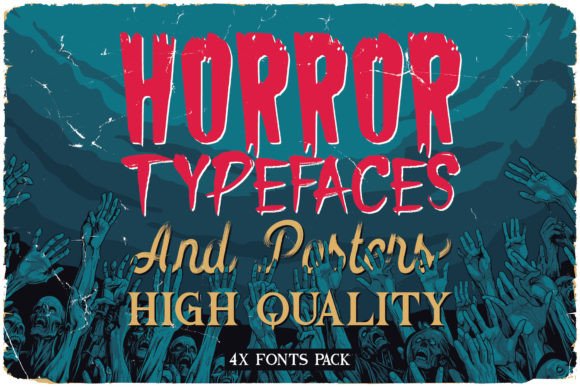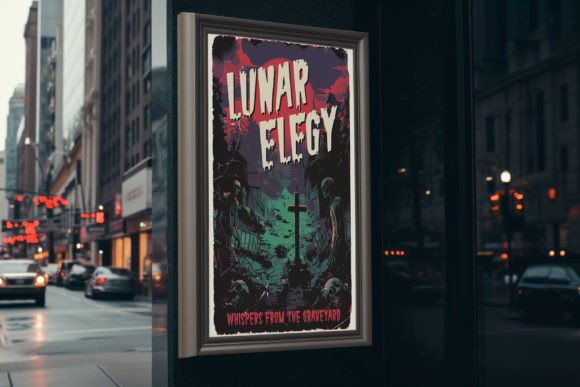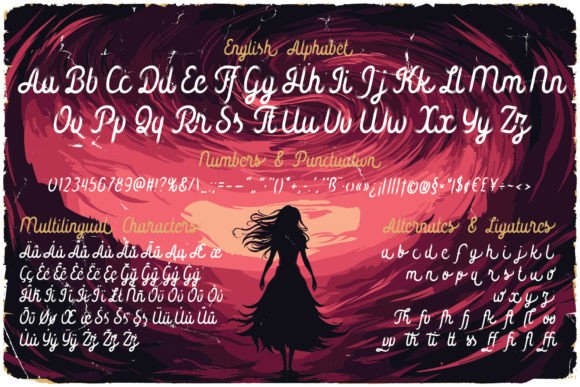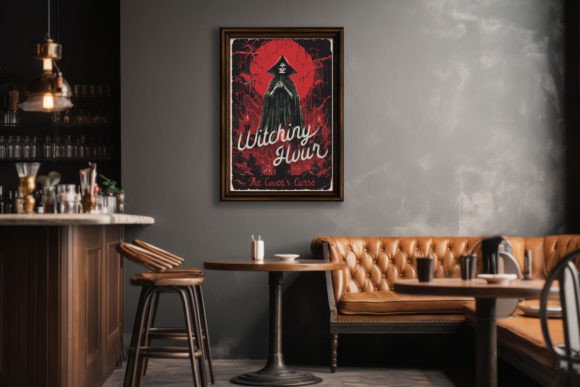
Vintage Horror Movies Bundle Font
Unleash the spine-tingling nostalgia of 80s horror with our exclusive Vintage Horror Fonts & Posters Bundle. Perfectly capturing the essence of the era, this unique collection will transport your designs to a world of macabre delight. Whether you’re designing movie posters, party invitations, or Halloween-themed projects, these four meticulously crafted fonts are your key to bringing back the chills and thrills of the 80s.